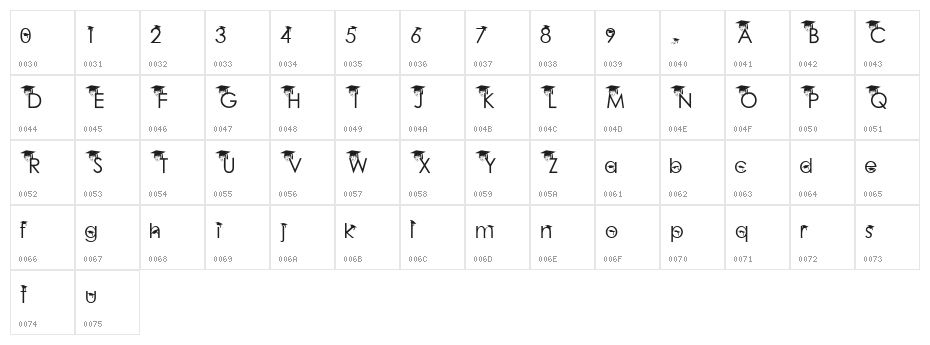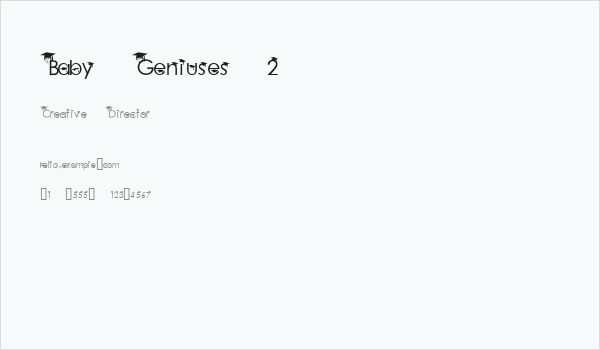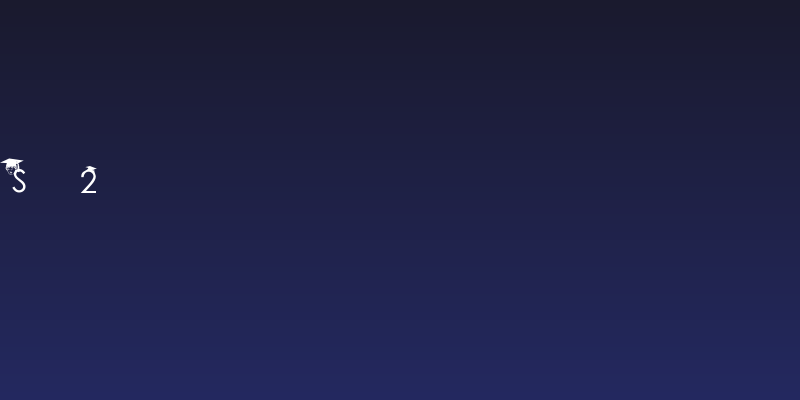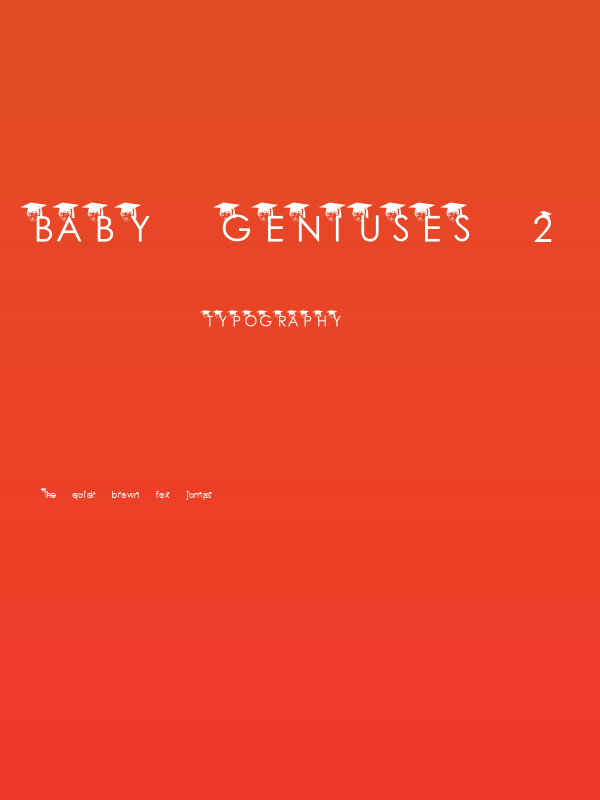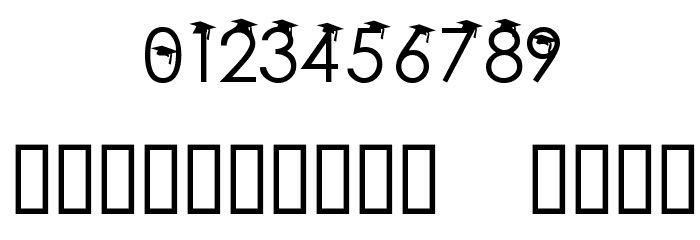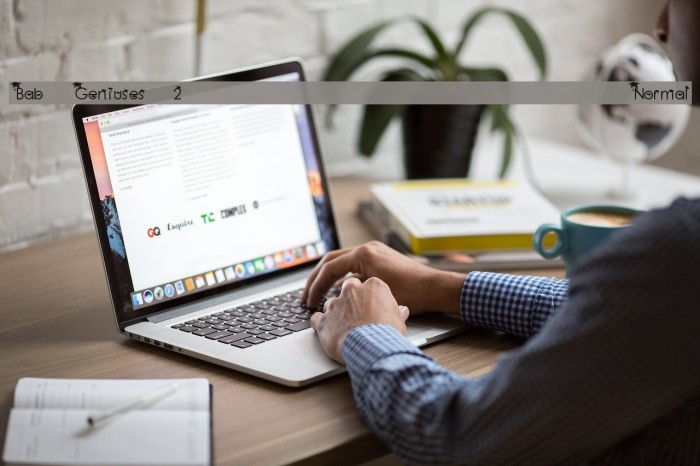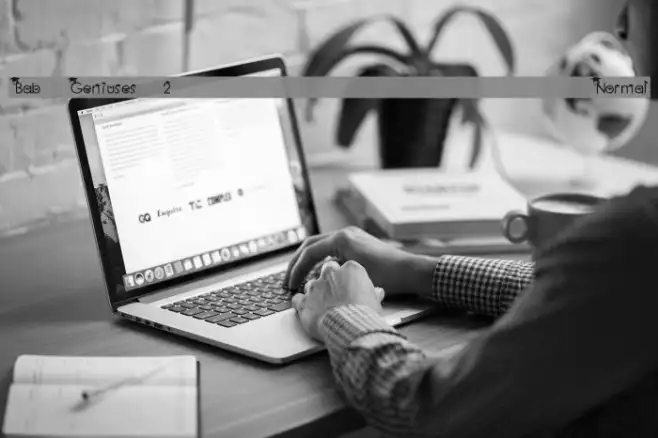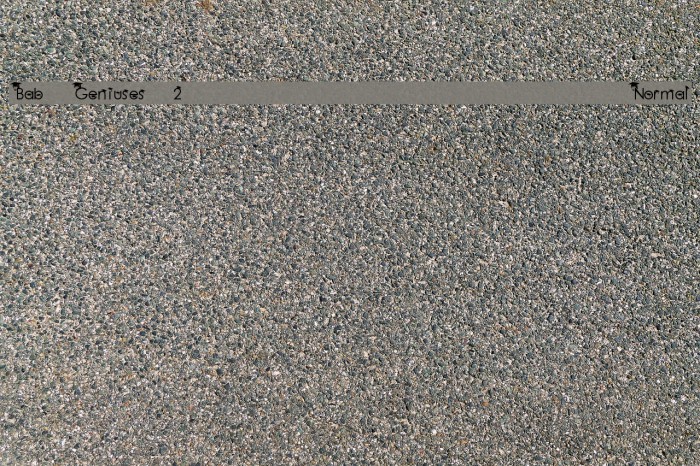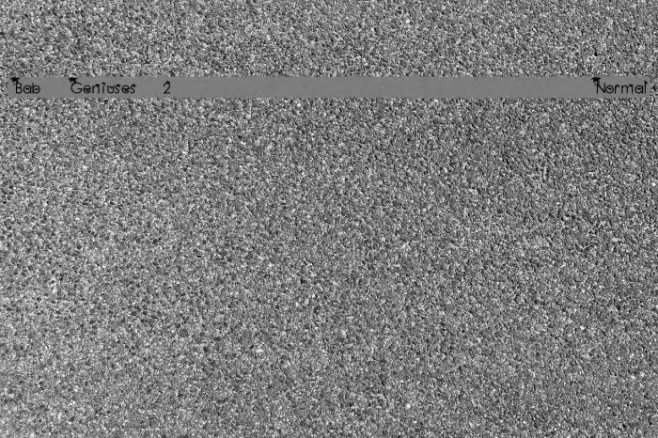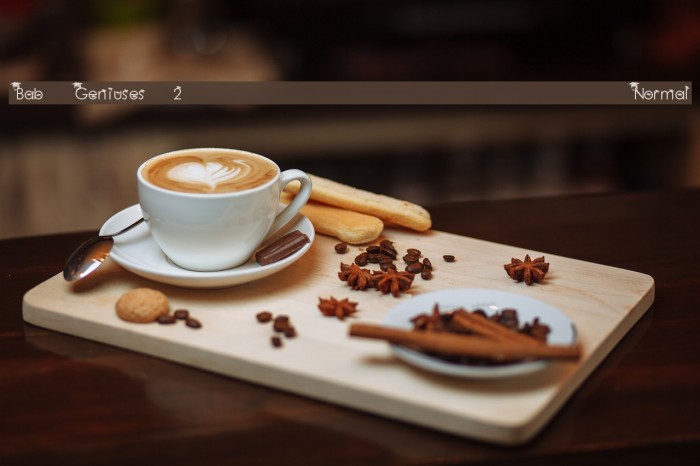
Baby Geniuses 2 Normal Font
Baby Geniuses 2 Normal Description
This playful and whimsical font features characters adorned with graduation caps, adding a humorous and lighthearted touch. The letters are primarily sans-serif with a clean and modern appearance, but the addition of the caps gives them a unique decorative flair. The uppercase and lowercase letters maintain a consistent style, with rounded edges and a slightly condensed form. The numbers follow the same playful theme, ensuring a cohesive look across all characters. This font is ideal for projects that aim to convey a sense of fun and creativity, particularly in educational or child-focused contexts.
| Use Case | Headlines, Logos, Educational Materials |
| Proposed Projects | Ideal for educational materials, children's books, playful branding, and event invitations. |